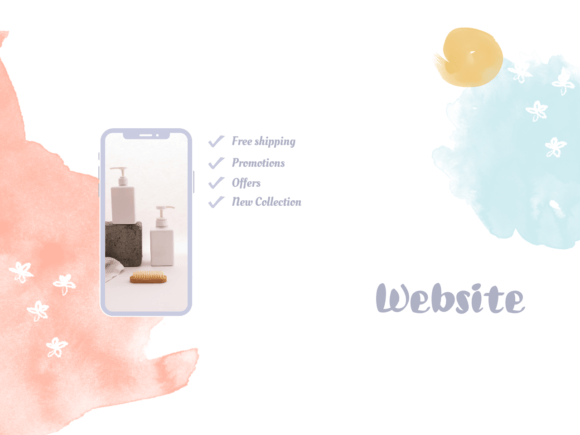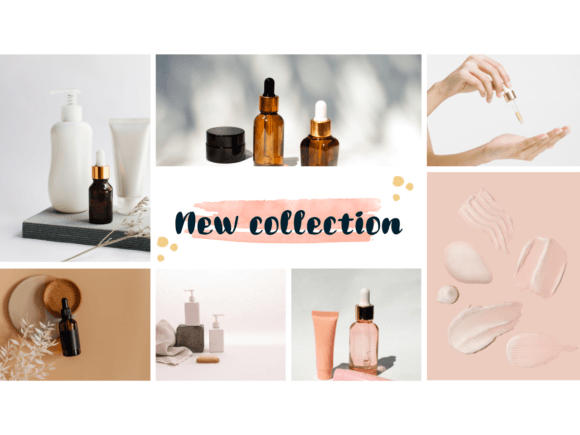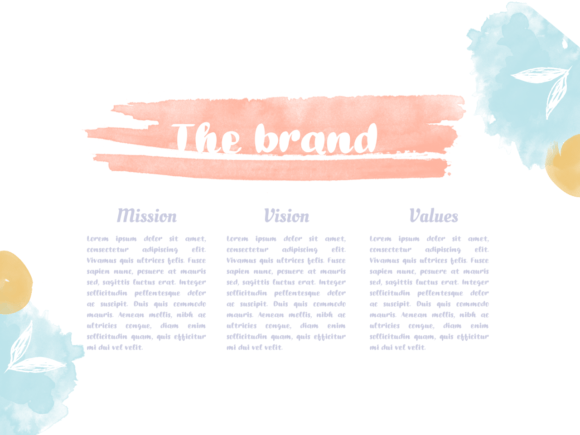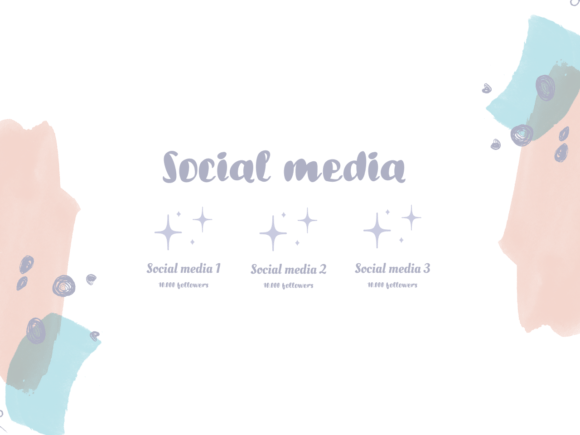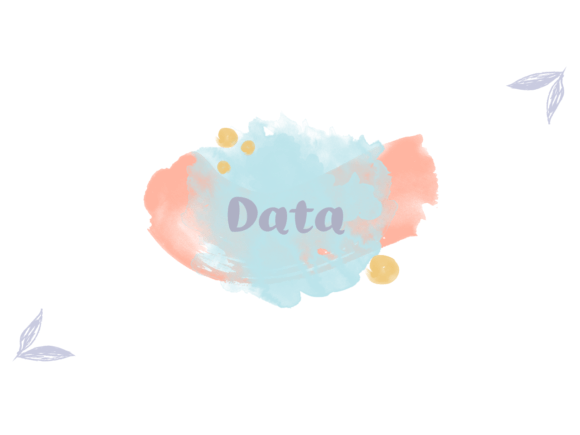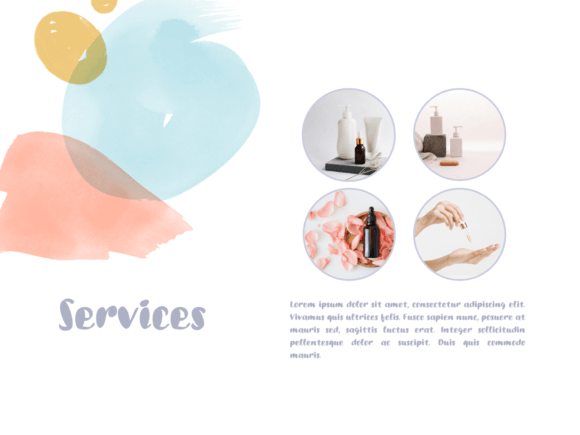
Introduction to Porpiang Font
As a designer, there’s nothing quite like the thrill of stumbling upon a font that sparks your creativity. It’s like finding a hidden treasure that elevates your entire design project. For me, that treasure was the Porpiang Font. Its sweet and friendly handwritten style has become my go-to choice for any project that requires a touch of warmth and personality.
What sets Porpiang Font apart is its natural and unique style, which makes it incredibly versatile and fitting for a wide range of designs. Whether you’re working on a branding project, a social media campaign, or a creative print design, Porpiang Font is the perfect design resource to bring your ideas to life. And the best part? It’s available for a free download, making it an invaluable asset for any designer looking to elevate their high-quality designs.
With its transparent background and limitless customization options, the Porpiang Font is the ultimate creative companion for designers of all levels. Whether you’re a seasoned pro or just starting out, this font is sure to inspire your next big project and help you achieve your design goals.
Key Features of Porpiang Font
- Transparent background allows for easy customization and integration
- Unique, elegant font style ideal for artistic and professional applications
- Supports a wide range of languages, making it a versatile design resource
Honest Review: Porpiang Font
I recently came across the Porpiang Font and was excited to try it out for my latest design project. As a designer, I’m always on the lookout for high-quality fonts that can elevate my creative work.
What works well: ✨ The Porpiang Font has a unique, modern design that immediately caught my attention. The transparent background makes it easy to layer and customize, which is perfect for creative projects. The font is also available for free download, which is a huge plus for designers on a budget.
The font is highly versatile and can be used for a wide range of applications, from branding and marketing materials to digital design and print projects.
Limitations: ⚠️ While the Porpiang Font is a great addition to any design resource library, it does have some limitations. The font is only available in a single weight, which may not be ideal for projects that require multiple font weights. Additionally, the font may not be suitable for projects that require a more traditional or classic look.
Overall, I’m impressed with the Porpiang Font and would definitely recommend it to designers looking for a unique and high-quality font for their creative projects.
- Unique, modern design
- Highly versatile
- Available for creative projects
Tips for Getting the Most Out of Porpiang Font
To get the most out of the Porpiang Font, use it in combination with other design elements, such as images and graphics. Experiment with different font sizes and colors to create a unique and eye-catching design.
The Porpiang Font is perfect for a variety of creative projects, including logos, brochures, and social media graphics. Use it to add a touch of elegance and sophistication to your designs.